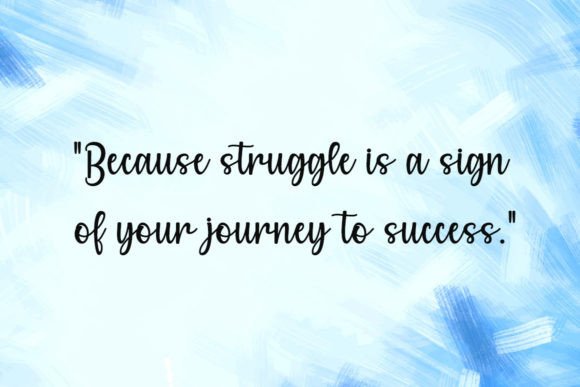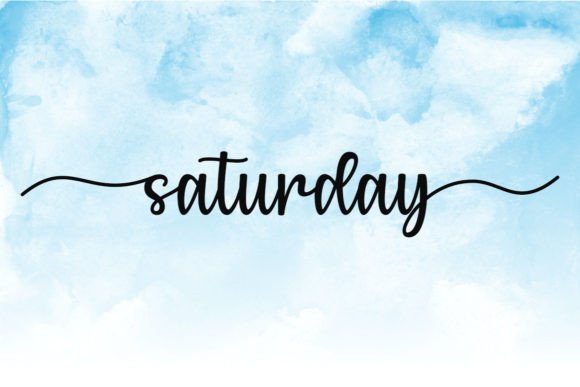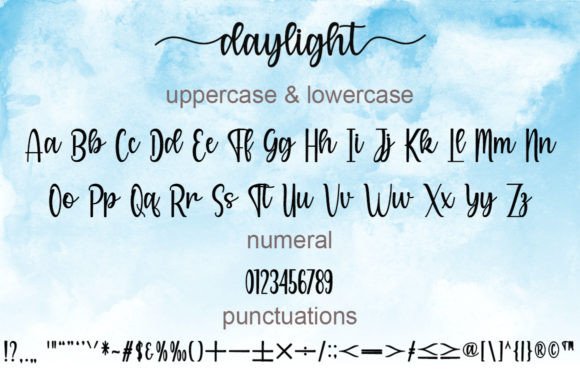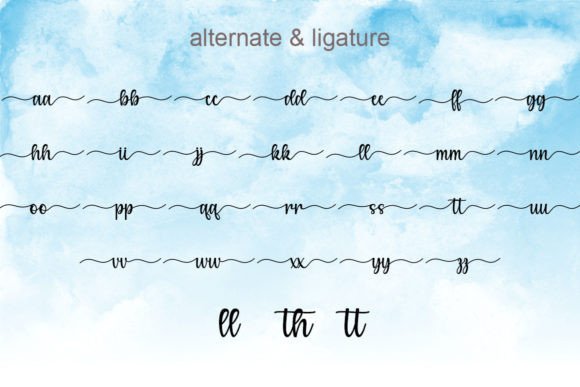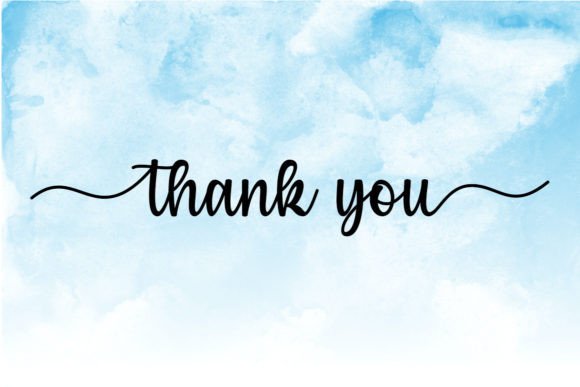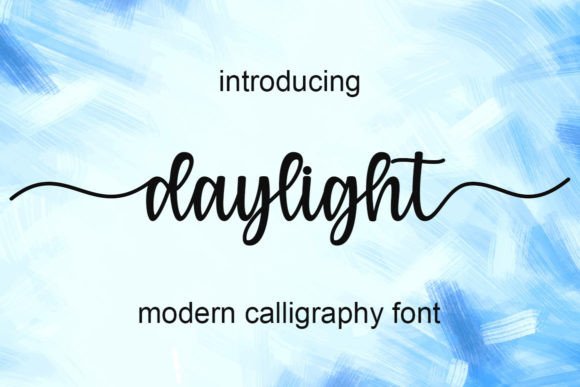
Introducing Daylight Font: The Enchanting Handwritten Font for Your Creative Projects
Are you a designer, crafty person, or entrepreneur looking for a unique and captivating font to elevate your projects? Look no further than Daylight Font! This enchanting handwritten font is perfect for a wide range of applications, from logos and branding to quotes, clothing, tote bags, business cards, websites, and many more.
The Charm of Daylight Font
Daylight Font is a beautifully crafted handwritten font that exudes warmth, elegance, and sophistication. Its unique and distinctive style makes it perfect for designers and crafters who want to add a personal touch to their projects. Whether you’re creating a logo, a website, or a marketing material, Daylight Font is sure to make your project stand out from the crowd.
When it comes to creating a logo or branding materials, the font you choose can make all the difference. Daylight Font is an excellent choice for logos and branding because of its unique and memorable style. Its elegant and sophisticated look makes it perfect for businesses that want to convey a sense of luxury, sophistication, and high-end quality.
Ideal for Quotes and Typography
Daylight Font is also perfect for quotes and typography projects. Its beautiful and flowing script makes it ideal for creating stunning quotes, posters, and social media graphics. Whether you’re a typography enthusiast or a designer looking for a unique font to add to your collection, Daylight Font is an excellent choice.
Great for Clothing and Accessories
If you’re a crafty person who loves to create handmade clothing and accessories, Daylight Font is a great choice for your projects. Its elegant and sophisticated style makes it perfect for creating beautiful tote bags, t-shirts, and other clothing items. You can also use it to create stunning labels and tags for your products.
Perfect for Websites and Digital Projects
Daylight Font is not just limited to print projects. It’s also perfect for websites and digital projects. Its clean and elegant style makes it easy to read on digital screens, making it ideal for websites, social media graphics, and digital marketing materials.
Why Choose Daylight Font?
So, why choose Daylight Font over other fonts? Here are a few reasons:
- Unique and distinctive style: Daylight Font has a unique and distinctive style that sets it apart from other fonts.
- Elegant and sophisticated: Its elegant and sophisticated look makes it perfect for businesses and designers who want to convey a sense of luxury and high-end quality.
- Versatile: Daylight Font is versatile and can be used for a wide range of projects, from logos and branding to quotes and digital projects.
- Easy to read: Its clean and elegant style makes it easy to read on both print and digital screens.
| Font Name | Daylight Font |
| Author | cavalera creative |
In conclusion, Daylight Font is an enchanting handwritten font that’s perfect for designers, crafters, and entrepreneurs who want to add a personal touch to their projects. Its unique and distinctive style, elegant and sophisticated look, and versatility make it an excellent choice for a wide range of applications. So, fall in love with Daylight Font and let it take your projects to the highest level!
Whether you’re creating a logo, a website, or a marketing material, Daylight Font is sure to make your project stand out from the crowd. So, don’t hesitate to give it a try and see the magic it can bring to your projects!